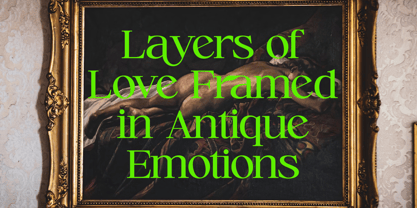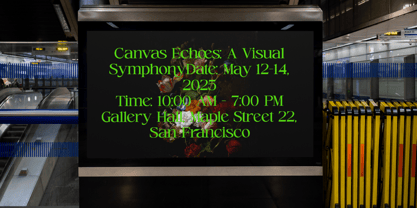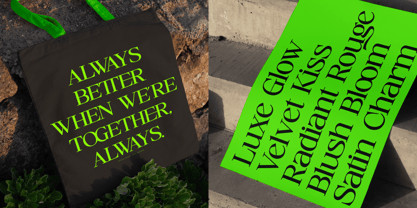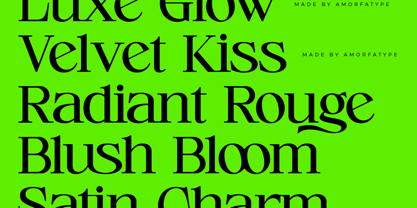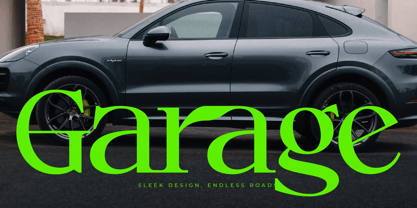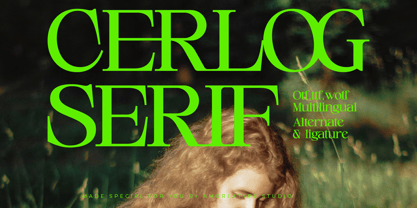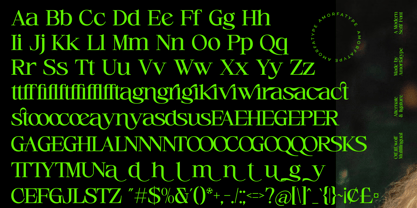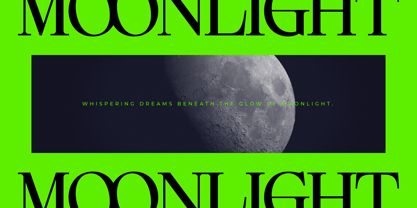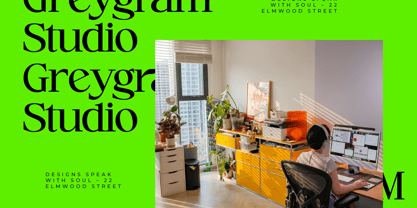
Cerlog
by Amorfa Type
The Cerlog Font Family was designed by Shiddiq Roihan and published by Amorfa Type. Cerlog contains 2 styles and family package options.
Cerlog – A Modern Serif Display Font by Amorfatype
Cerlog is a sophisticated modern serif display font that masterfully combines refined tradition with contemporary boldness. With its elegant high-contrast strokes, sharp yet graceful serifs, and clean, structured forms, Cerlog brings a distinctive presence to any design. This font radiates confidence and luxury, making it a perfect fit for branding, editorial work, and modern visual identities.